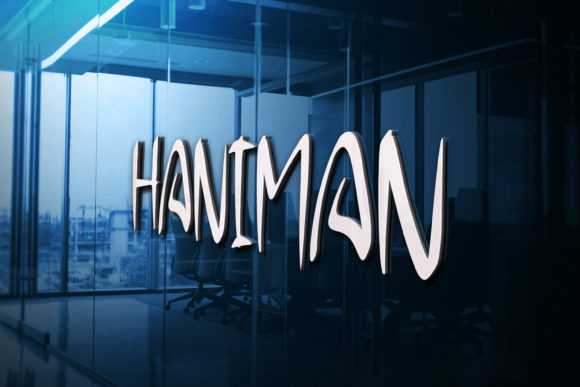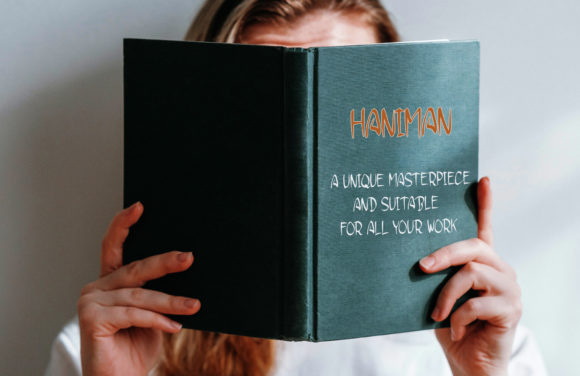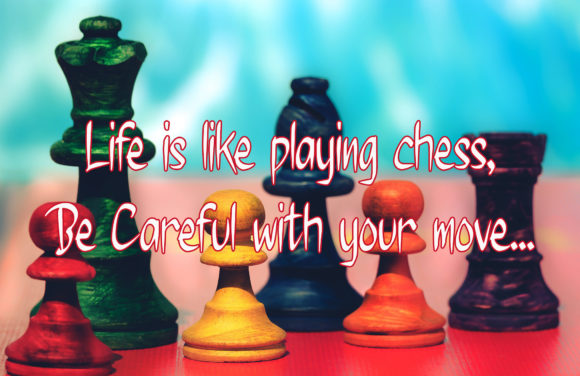
Introduction to Haniman Font
Have you ever been working on a creative project, scrolling through your favorite design resources, and suddenly, you stumble upon the perfect font? That’s exactly what happened to many designers when they discovered the Haniman Font. Its unique, handwritten style instantly elevates any design from ordinary to extraordinary.
As a valuable design resource, the Haniman Font is perfect for designers looking to add a touch of high-quality, handwritten flair to their projects. Whether you’re working on a branding campaign or creating a beautiful calligraphy script for a DIY project, this font is sure to impress. Plus, with a transparent background, you can easily overlay it onto any image or design element.
Key Features of Haniman Font
- High-quality design: Haniman Font is designed with precision and care to provide a high-quality look for your creative project.
- Transparent background: This font features a transparent background, making it easy to layer over images or other design elements.
- Large character set: Haniman Font includes a large character set, including Latin, Cyrillic, and Greek characters, making it suitable for a wide range of languages.
- High-resolution design: The font is designed at 300 DPI, ensuring that it looks sharp and clear at high resolutions.
- Perfect for design projects: Haniman Font is a versatile design resource that can be used for a variety of creative projects, from branding and marketing materials to digital art and graphics.
Honest Review: Haniman Font
As a designer, I’m always on the lookout for high-quality fonts to elevate my creative projects. Recently, I had the chance to explore the Haniman Font, and I’m excited to share my honest review with you.
- Unique aesthetic: The Haniman Font boasts a distinctive, modern look that’s perfect for designers seeking a fresh perspective.
- Transparent background: The font’s transparent background allows for seamless integration with various design elements.
- Limited character set: The Haniman Font’s character set is somewhat limited, which may be a concern for designers requiring a wide range of characters.
- No bold or italic variations: The font only comes in regular weight, which might not be ideal for projects requiring bold or italic text.
Overall, I’m impressed with the Haniman Font’s potential as a design resource. While it has some limitations, its unique aesthetic and free download make it a great addition to any designer’s toolkit.
Haniman Font is commonly used in a variety of creative projects, including logo design, branding, and advertising. It is also used in educational materials, such as textbooks and presentations, due to its high-quality and transparent background. With a free download available, Haniman Font is a valuable design resource for anyone looking to create high-quality designs.
Does the Haniman Font support transparent background images?
Yes, the Haniman Font is designed to work seamlessly with transparent background images. This makes it an ideal choice for designers who want to create visually appealing and creative projects with layered elements.